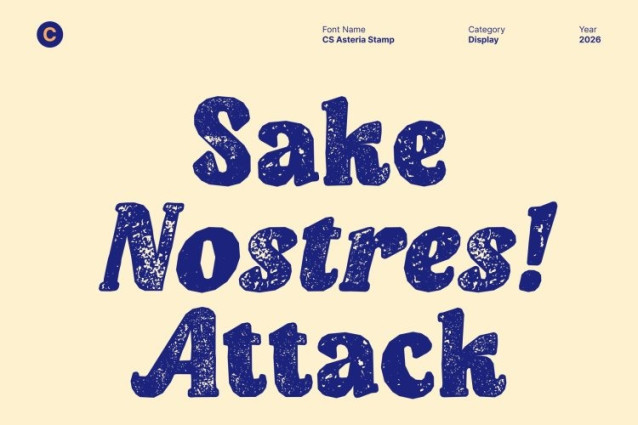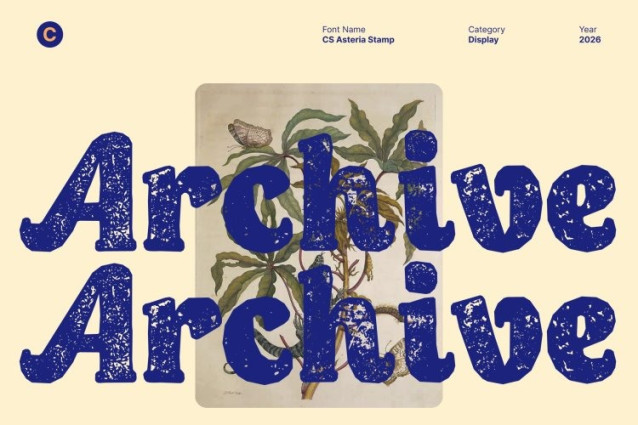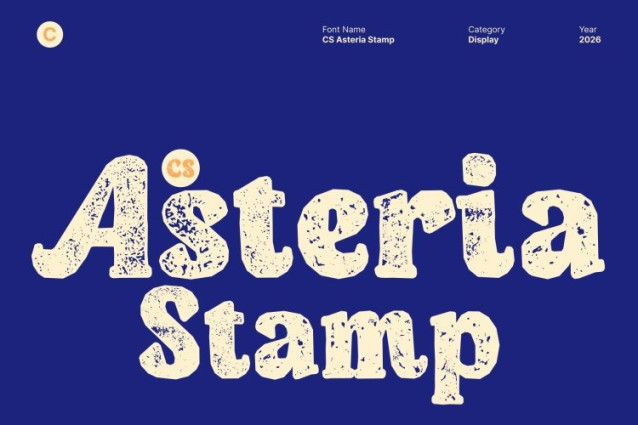
CS Asteria Stamp Font
CS Asteria Stamp Font This is a bold display serif font inspired by the unmistakable character of classic 90s typography. Its strong, confident letterforms and rich serif details deliver a sense of tradition and retro sophistication. This font captures the bold spirit of the era while maintaining a timeless structure that remains visually impactful today.
Stamped Texture for Authentic Vintage Character
The stamped effect adds a rough, uneven texture that enhances the font’s nostalgic appeal. This distressed finish introduces an authentic, worn-in feel evoking old print techniques, vintage signage, and classic packaging. The texture brings depth and personality to each letter, making the font feel tactile, organic, and full of history rather than overly polished.
Nostalgic Design with Strong Visual Presence
This font excels at creating a nostalgic atmosphere. Its retro proportions combined with the stamped texture give designs a genuine vintage tone that feels expressive and character-rich. This makes it especially effective for designs that aim to recall past decades while still feeling bold and intentional.
Versatile for Retro, Classic, and Statement Designs
Perfect for retro posters, vintage-inspired branding, labels, apparel graphics, and classic product packaging, offers a balance of boldness and authenticity. Its timeless serif foundation and textured finish ensure your designs stand out with a classic, confident, and memorable presence ideal for projects that celebrate heritage, nostalgia, and enduring style.